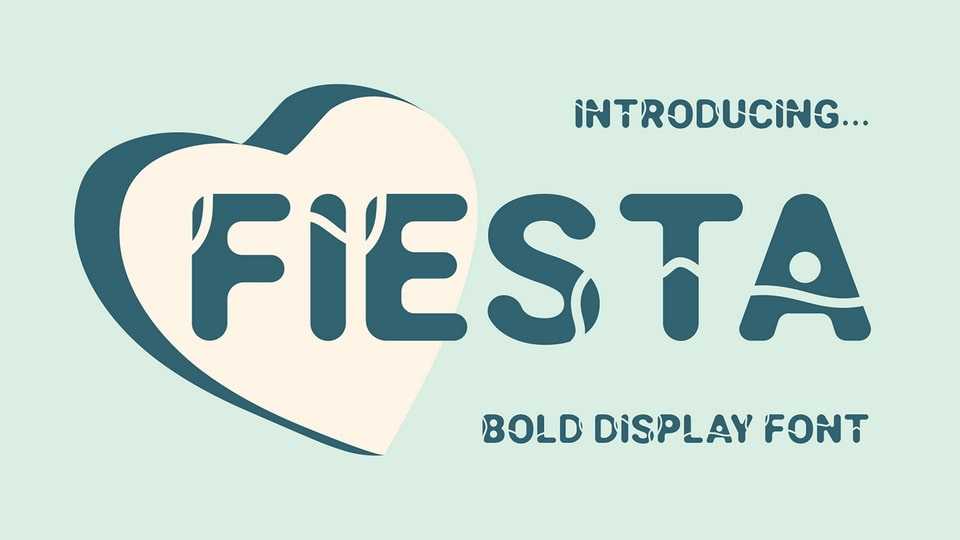
Download Fiesta font, a bold, playful, and adorable display typeface. It’s perfect for adding a personal touch to t-shirt designs, quotes, branding and so on.
Designer: Teona Maisuradze